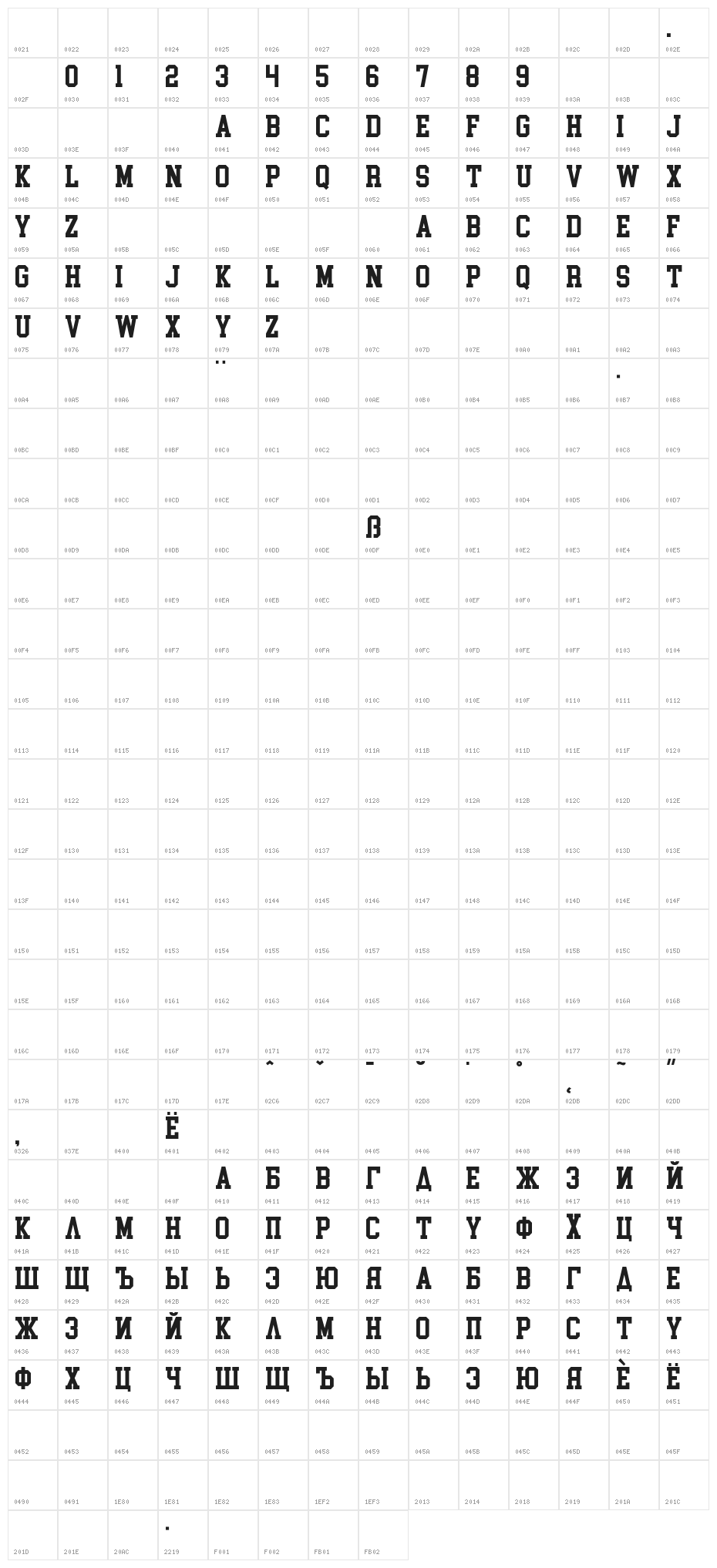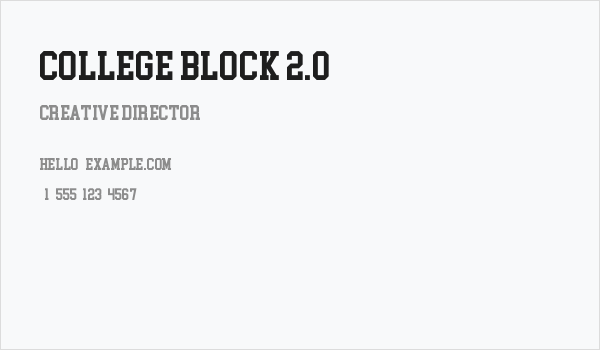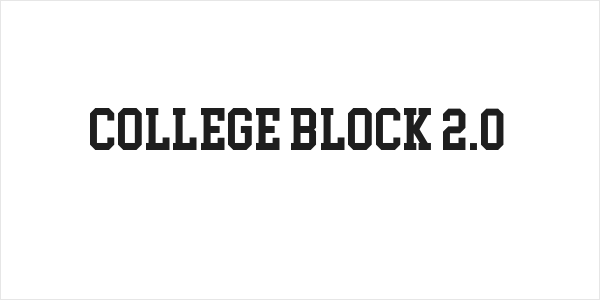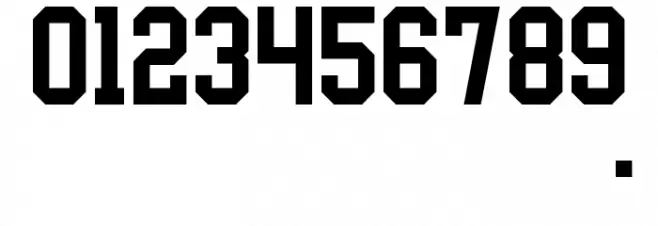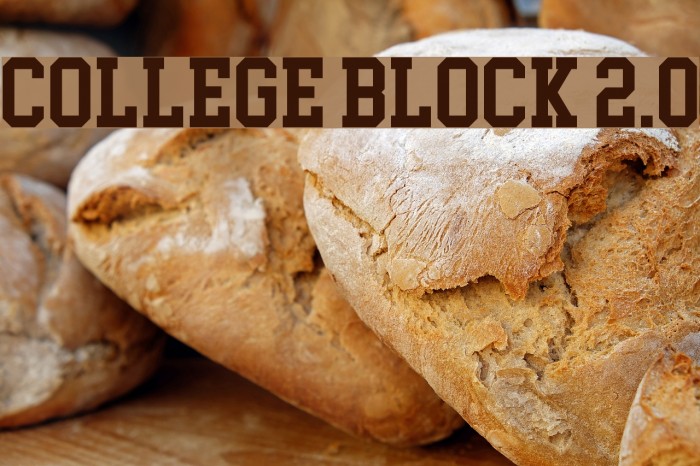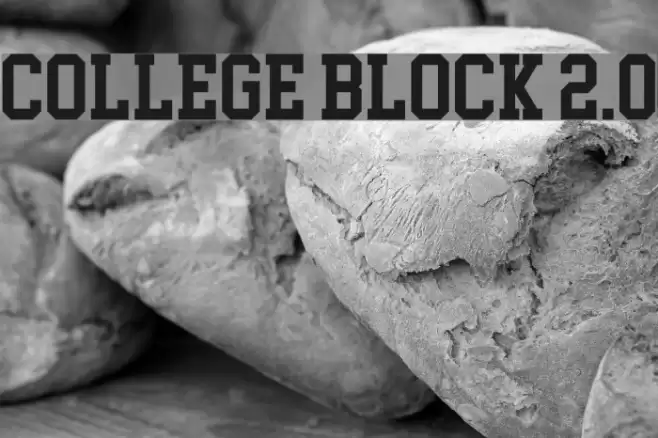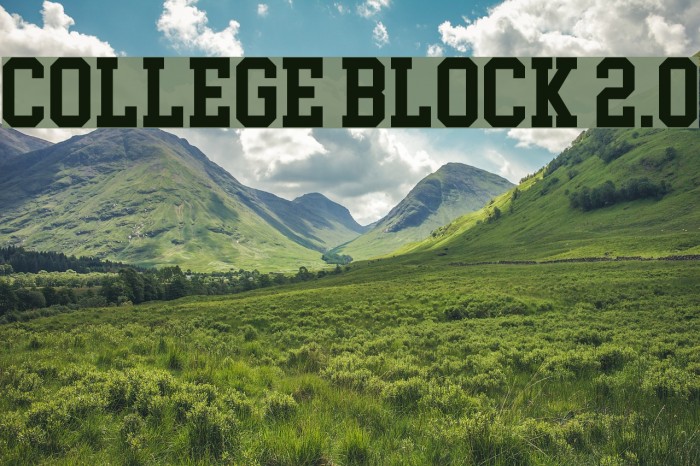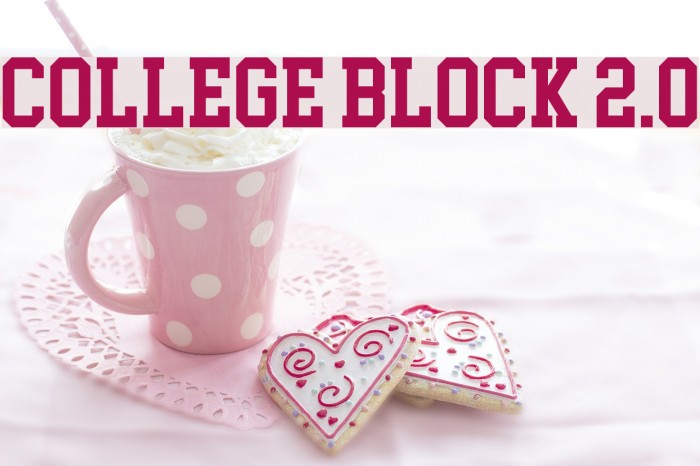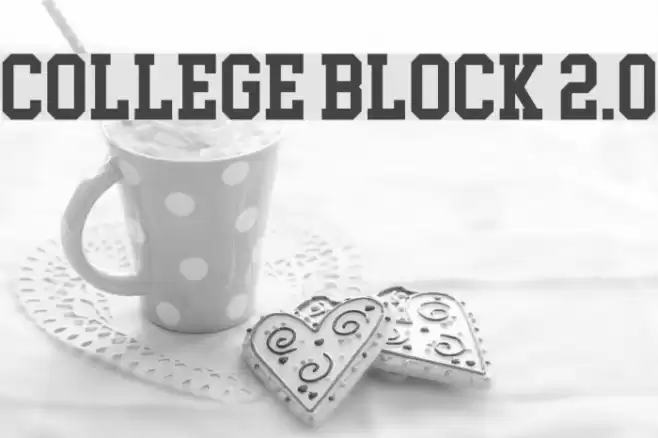
College Block 2.0 Font
College Block 2.0 Description
This font features a bold, blocky design reminiscent of traditional collegiate lettering. The characters are uppercase with strong, angular lines and a solid, impactful presence. The numbers follow the same robust style, ensuring consistency across all elements. This font is ideal for creating a sense of authority and tradition, often used in sports team branding and educational institution materials. The design is straightforward yet powerful, making it suitable for projects that require a bold statement.
| Overall Style | Classic |
| Proposed Projects | Perfect for sports team branding, university merchandise, event posters, and any project needing a strong, traditional look. |